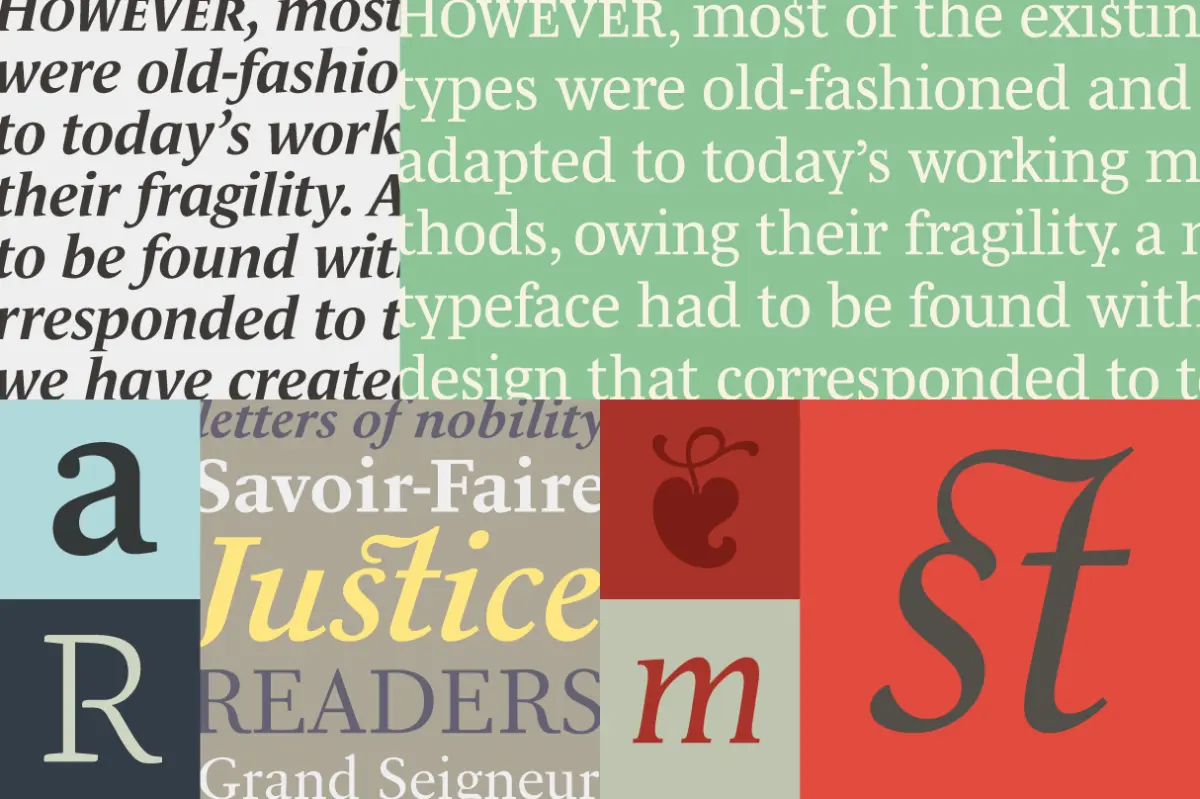
Expanding Creative Horizons: Typofonderie and Underware Bring Full Font Collections to Desktop via Typekit
As the design community gears up for Adobe’s flagship annual MAX conference, Typekit has rolled out a major library expansion that promises to transform how professionals approach typography in print, digital, and environmental design. In a move celebrated by typographers and graphic designers alike, renowned foundry partners Typofonderie and Underware have transitioned their complete type libraries from web-only formats to full desktop availability. This structural shift eliminates longstanding workflow barriers, granting creators unrestricted access to two of Europe’s most meticulous and celebrated type foundries across all creative environments.
Main Facts: Unlocking Full Desktop Potential
The core development centers on the liberation of complete typographic inventories from Typofonderie and Underware for local desktop use. Previously restricted primarily to web-based implementations, these extensive collections can now be synchronized locally through Adobe’s font-serving ecosystem.
• The Foundries: Typofonderie (led by acclaimed type designer Jean François Porchez) and Underware (an independent type foundry collective based in the Netherlands and Finland).
• The Upgrade: Full collections are no longer constrained by web-only licenses; they are fully accessible for desktop applications, print design, branding, and large-scale environmental graphics.
• Featured Families: Standout additions include Typofonderie’s versatile Le Monde Journal, expressive display options like Ysans Mondrian, and Underware’s show-stopping script Bello alongside the expansive monospace superfamily Zeitung.
By granting desktop rights to these comprehensive portfolios, Typekit bridges the gap between digital web typography and traditional print production, offering seamless brand consistency across multi-channel campaigns.
Chronology: The Journey to Full-Spectrum Licensing
To understand the significance of this release, it helps to examine how the relationship between digital foundries and cloud-based typography platforms has evolved over the past decade.
• Early Digital Integration: When web fonts first gained mainstream adoption, foundries often tested the waters by licensing restricted subsets or web-only versions of their libraries to platforms like Typekit. This cautious approach protected intellectual property while introducing web designers to boutique foundries.
• The Demand for Omnichannel Consistency: As brand identities increasingly spanned responsive websites, mobile applications, high-end editorial print, and physical packaging, designers pushed for unified licensing. Using mismatched fonts—a web variant for digital and a separate desktop purchase for print—created administrative hurdles and potential rendering discrepancies.
• Mid-October Rollout: Announced midway through October as a precursor to the massive wave of updates slated for Adobe MAX, Typofonderie and Underware finalized agreements to release their entire catalogs for dual desktop and web synchronization.
• Immediate Availability: Following the announcement, subscribers gained instantaneous access to sync these newly unlocked libraries directly through their creative software suites, setting a new benchmark for foundry partnerships.
Supporting Data: Exploring the Typographic Range
To help designers navigate these massive new libraries, Typekit and the respective foundries have provided categorization frameworks and analytical breakdowns of how these typefaces perform under different use cases.
Typofonderie: Structure and Flexibility
Typofonderie’s catalog is celebrated for its historical depth paired with modern legibility. The foundry’s internal classification system sorts faces into four distinct categories:
1. Legible at text sizes: Built for long-form reading, high-density publications, and editorial spreads.
2. Expressive and decorative: Tailored for editorial headers, book covers, and branding.
3. Fancy and eye-catching: Ideal for high-impact display settings, packaging, and advertising.
4. Simple and efficient: Clean, utilitarian sans-serifs engineered for UI design and corporate identity.
A prime example within this collection is Le Monde Journal. Unlike standard font families that jump abruptly from Regular to Bold, Le Monde Journal includes subtle intermediate weights like Demibold and Book. This granular control allows typographers to fine-tune copy-fitting in tight editorial columns without sacrificing the "breathing room" necessary for optimal legibility.
On the sans-serif front, Ysans Mondrian offers a mesmerizing display aesthetic tailor-made for contemporary logo design and branding. Meanwhile, more understated sans families like Anisette feature subtle geometric nuances that reward close inspection, bridging the gap between classic French art deco sensibilities and modern minimalism.
As designers begin incorporating these newly liberated font families into their active projects, the creative community awaits the broader wave of announcements on the horizon. For now, the message from Typekit is clear: check your libraries, experiment with those bold new display weights, and let these exceptional foundry collections breathe new life into your next creative endeavor.